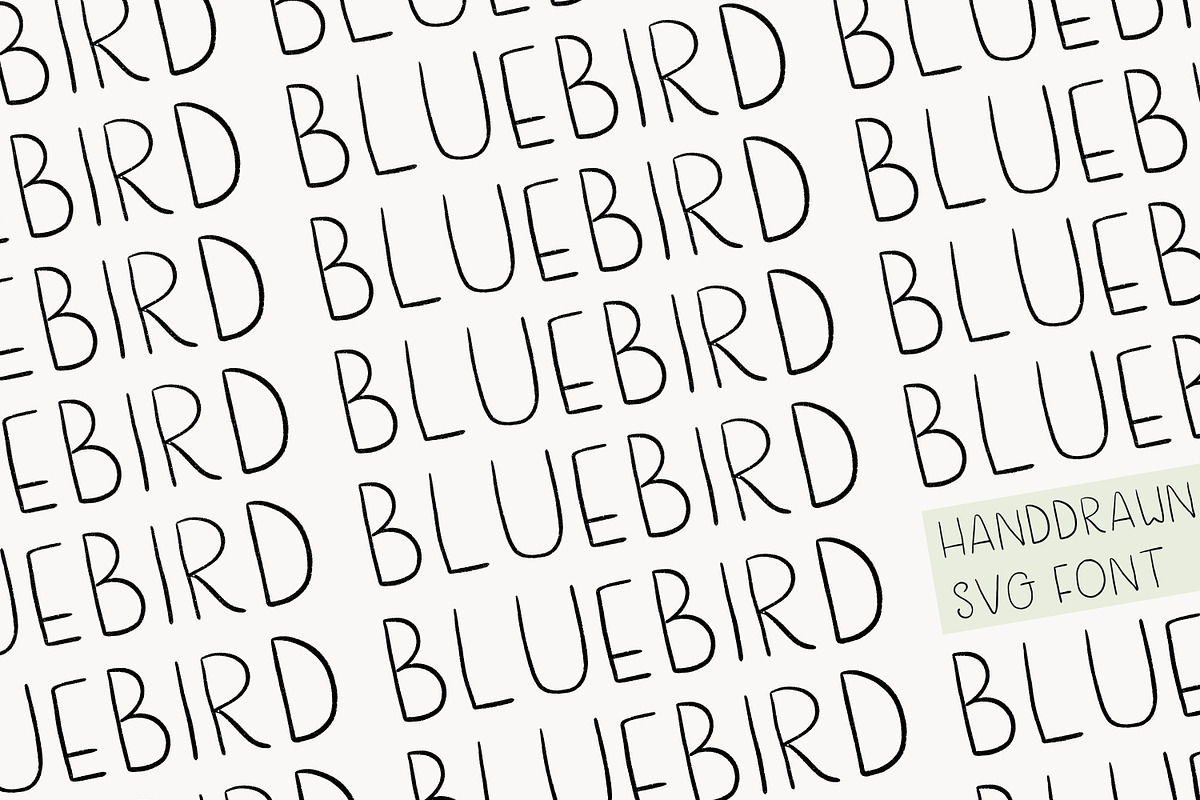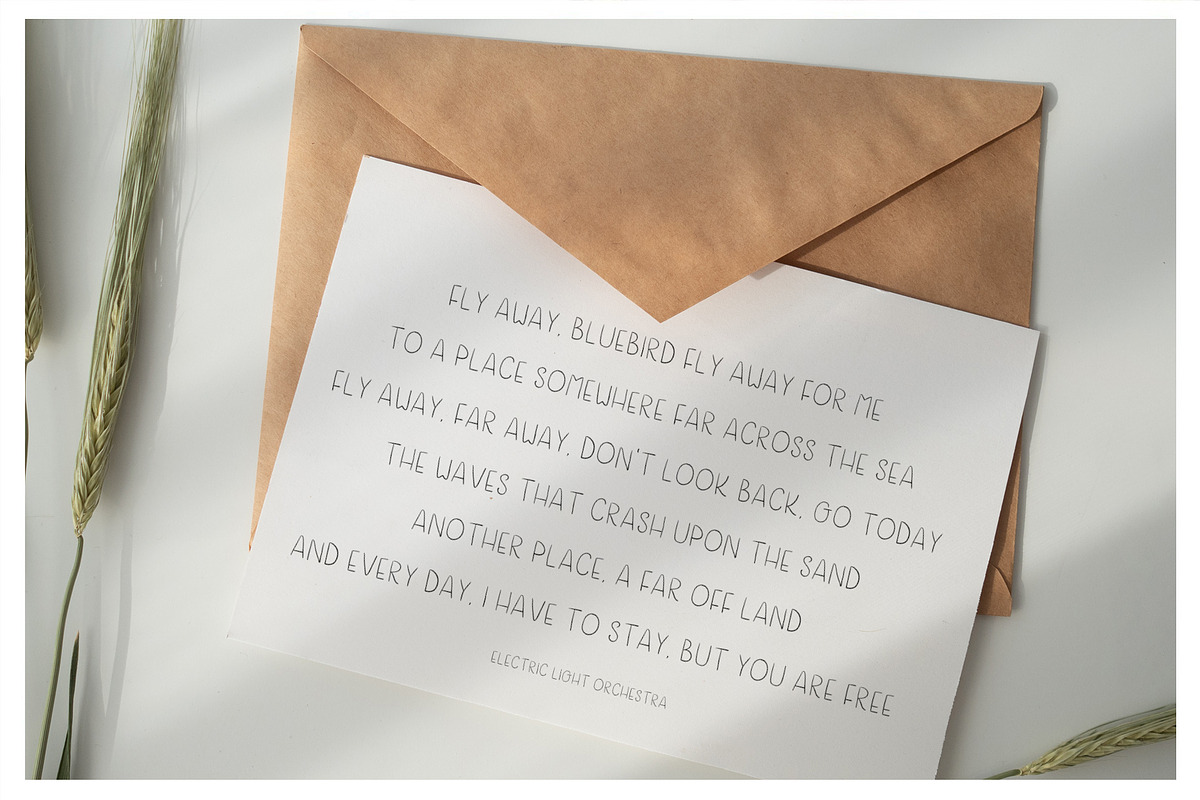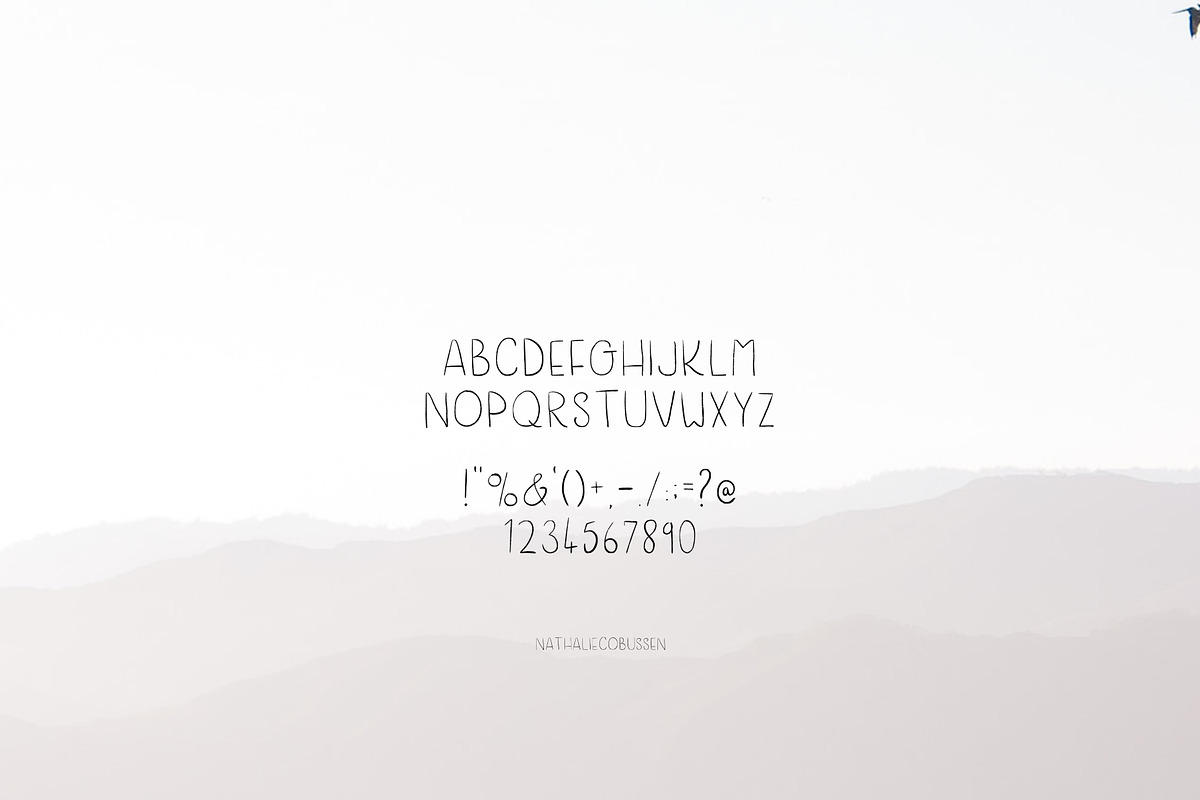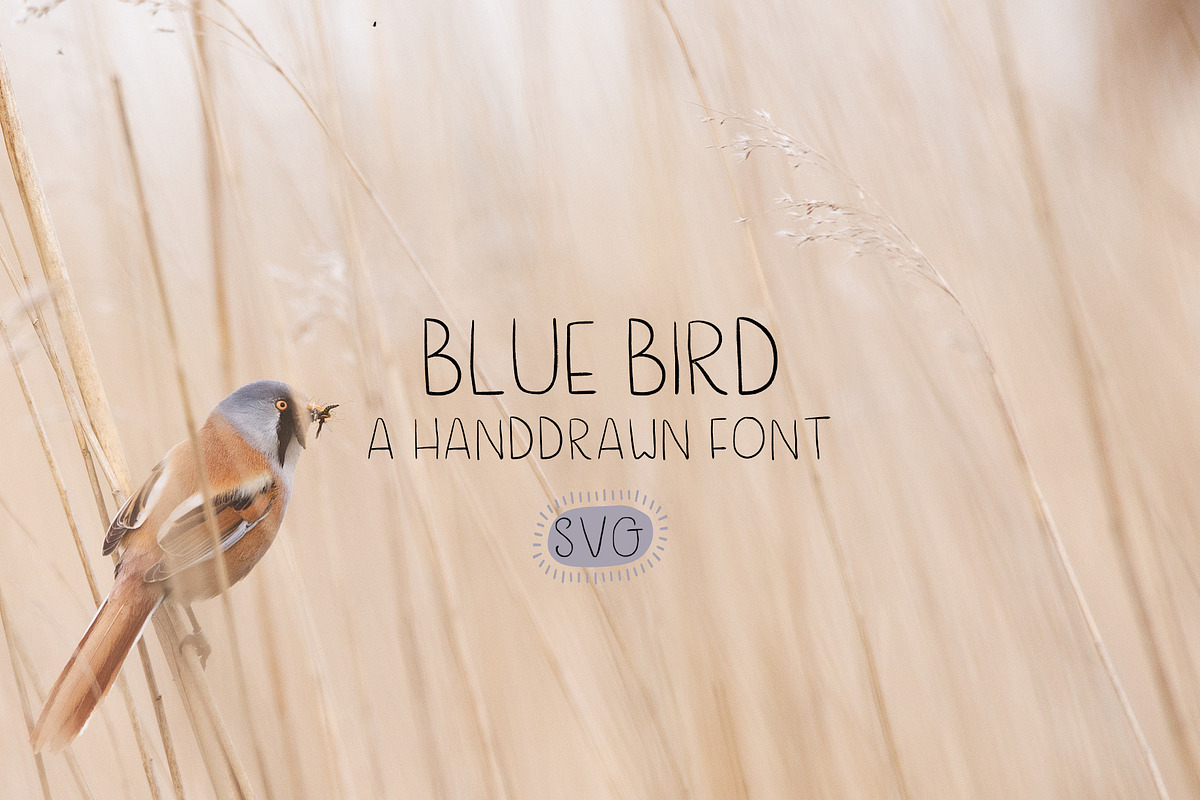
Blue Bird a Handwritten Font
Blue Bird is a simple but playful and scribly hand-drawn font.
It comes with uppercase, numerals and minimal punctuations. This font can always be the right choice for a lot of creative work and perfect for nursery wall art, children’s books and everything whimsy.